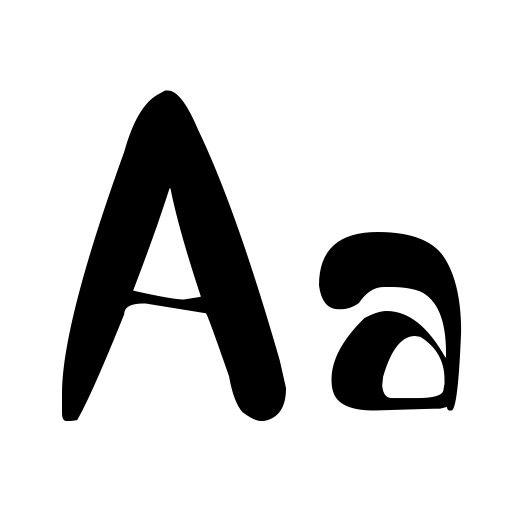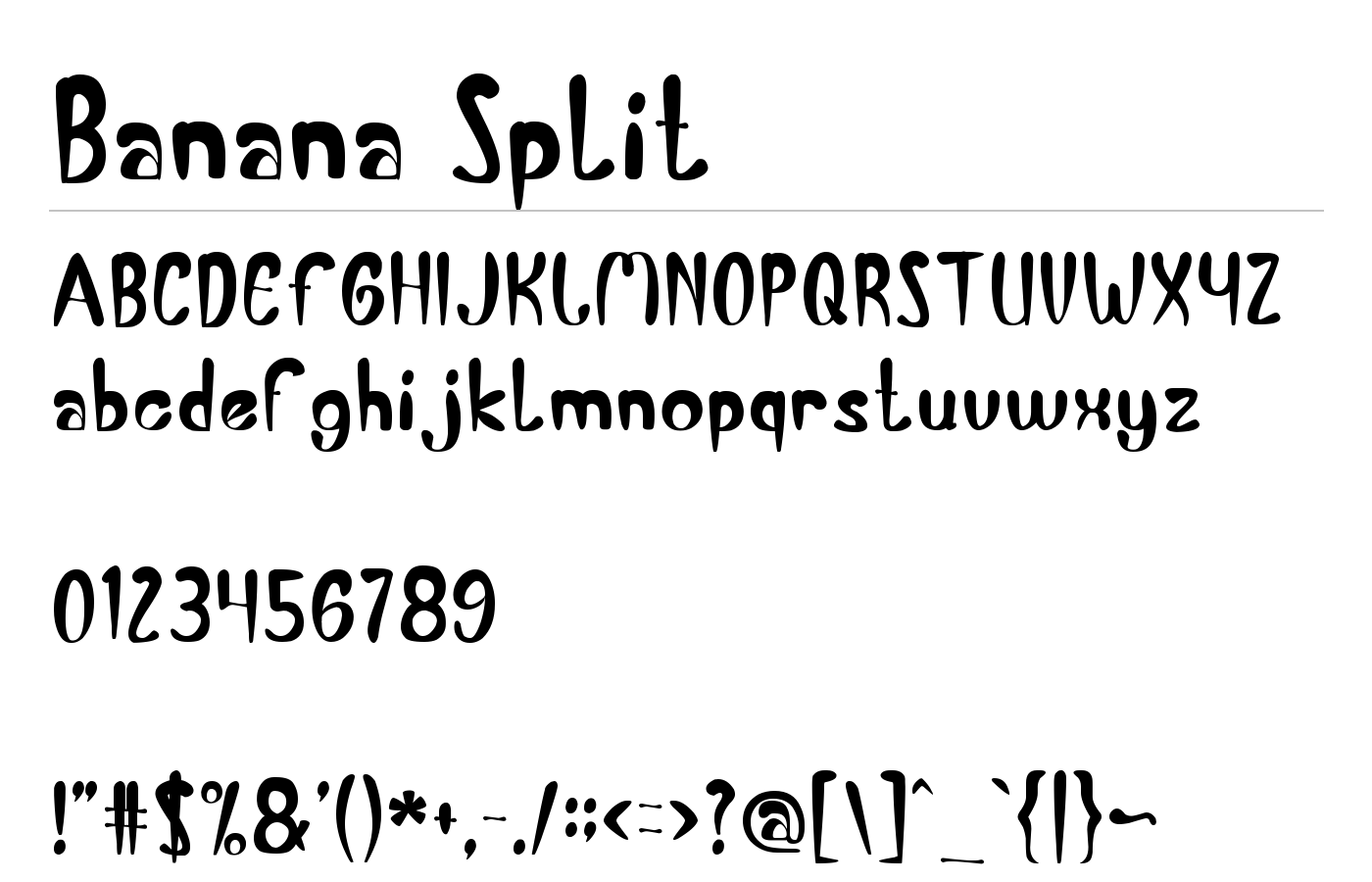
Banana Split is a playful and quirky handwritten sans serif font with a casual, friendly feel. Its uneven strokes, whimsical letterforms, and moderate contrast create a lively and approachable personality, making it ideal for creative projects, children's designs, and informal branding where a fun and inviting tone is desired. This font works well for logos, packaging, and headlines that seek to convey warmth and creativity.
Banana Split Font
About Banana Split Font